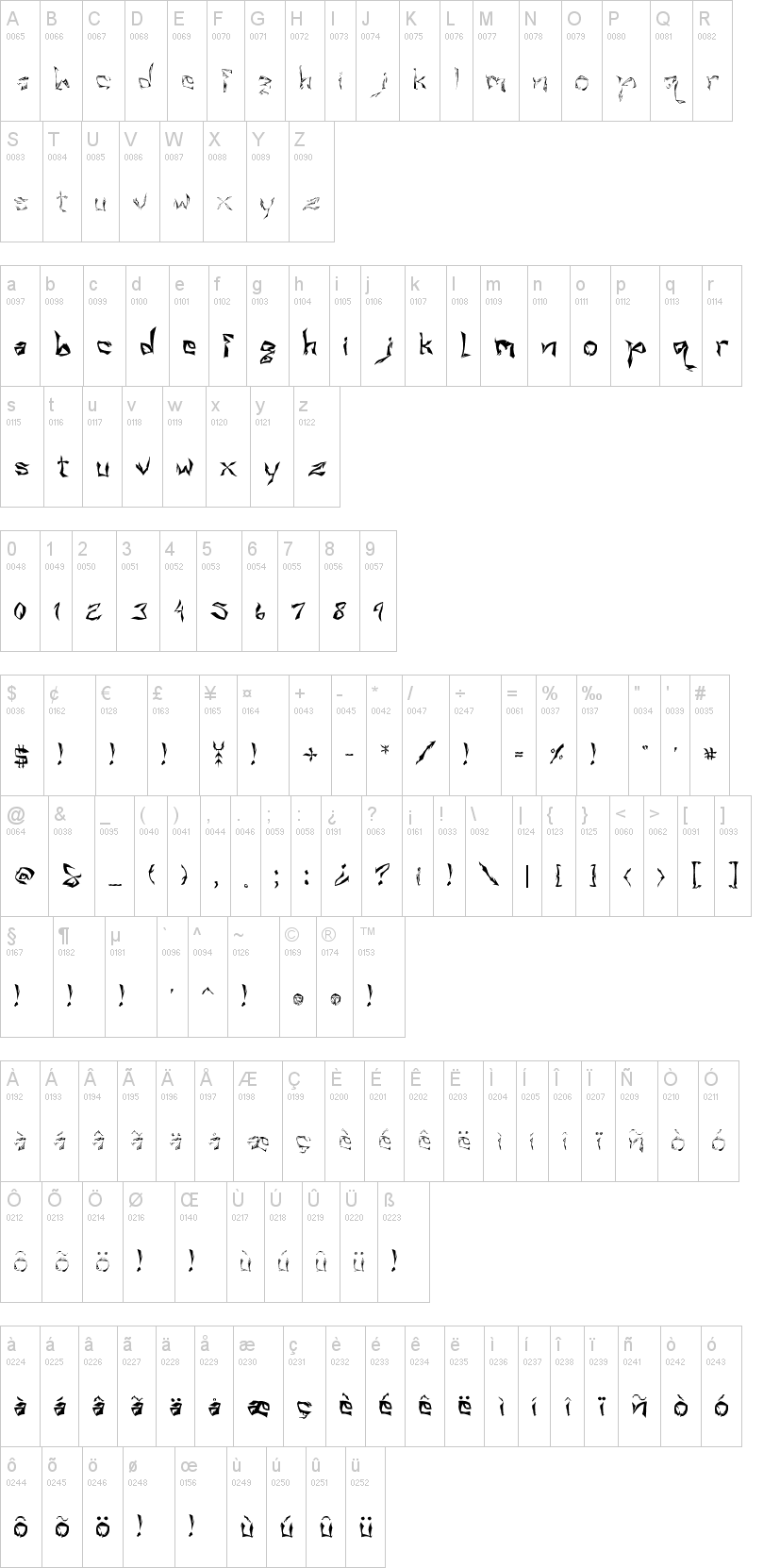
Шрифт ISL Villain
created in 1998
create a lowercase and uppercase piece of text. place the uppercase text over the lowercase one in a different color.
Inspired by f*cking pretty by Rick Valicenti.